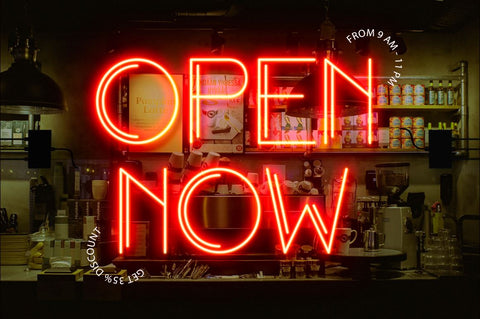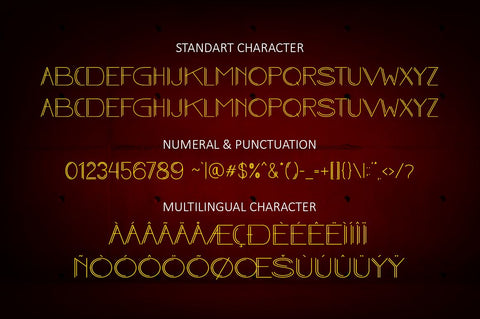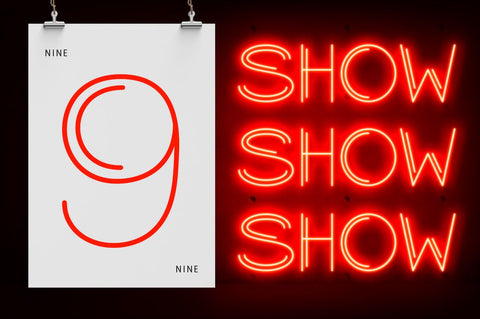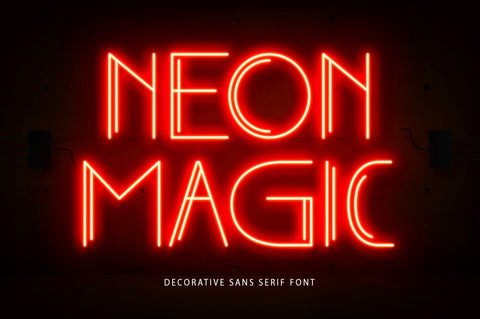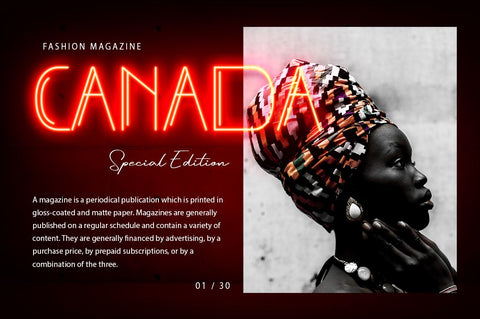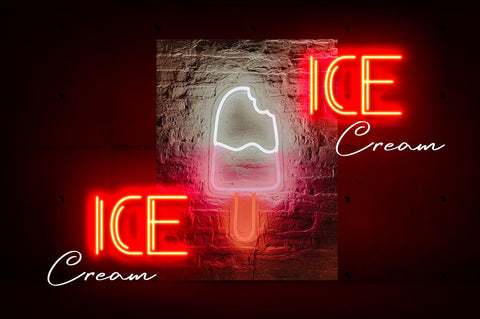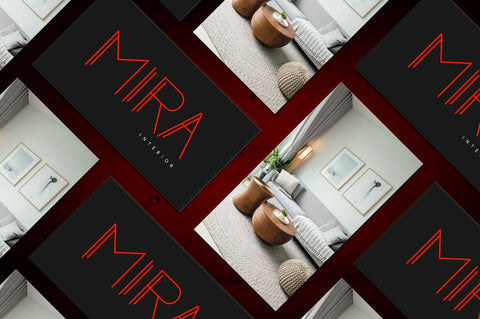
Neon Magic - Retro Cool Sans Serif Font
Neon Magic is a decorative display font with retro cool sans serif line. This Inline style works great as a headline for music promotion, film titles, sign, logotype and gig posters, and when combined with the included graphic presets* achieves a truly realistic neon look and more!
- Uppercase and lowercase
- Numbers
- Symbols
- Multilingual Accent